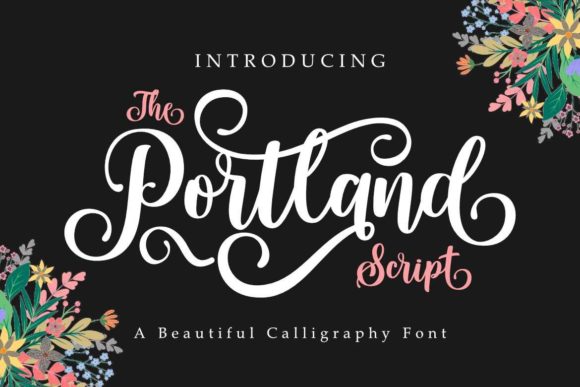
Prepare to be mesmerized by Portland Script, an enchanting handwritten font that seamlessly blends classic elegance with a modern twist. Let your creativity flourish as you explore the boundless possibilities of this exquisite font, meticulously crafted by the talented Madatype Studio.
Portland Script is not just a font; it's an artistic masterpiece that will elevate your designs to new heights. Its graceful strokes, inspired by traditional calligraphy, exude a timeless charm, while its contemporary flair ensures it remains relevant and captivating. Whether you're a seasoned designer or just starting your creative journey, Portland Script will effortlessly enhance your projects with its undeniable allure.
Effortlessly Create a Cohesive Brand Identity:
Unleash the power of Portland Script to craft a cohesive and visually stunning brand identity that resonates with your audience. Its versatile nature allows seamless integration across various platforms, from captivating logos and elegant letterheads to visually engaging social media posts. Let Portland Script be the cornerstone of your brand's visual identity, leaving a lasting impression on your customers.
Craft Enchanting Invitations and Greeting Cards:
Let Portland Script add a touch of magic to your special occasions. Design invitations and greeting cards that are as unique and memorable as the moments they celebrate. Whether it's a wedding, a birthday, or a simple note of appreciation, Portland Script will transform your words into works of art, leaving a lasting impression on your loved ones.
Create Eye-catching Social Media Graphics:
In today's digital world, social media is a powerful tool to connect with your audience and showcase your creativity. With Portland Script, you can effortlessly create visually captivating graphics that demand attention in the crowded social media landscape. Its elegant style and versatility make it the perfect choice for crafting engaging posts, captivating stories, and eye-catching ads that will leave your followers swooning.
Design Breathtaking Posters and Flyers:
Unleash your creativity and design posters and flyers that are as captivating as they are informative. Whether you're promoting an event, a product launch, or a special offer, Portland Script will elevate your designs with its sophistication and charm. Its legible and visually appealing style ensures that your message will shine through, leaving a lasting impact on your audience.
Elevate Your Website Design:
Transform your website into a visually stunning masterpiece with Portland Script. Its harmonious blend of classic and contemporary elements will instantly enhance the user experience. Craft headers and titles that captivate attention, weave enchanting narratives with its beautiful letterforms, and design call-to-action buttons that invite visitors to engage with your content. Portland Script will elevate your website's design, making it a true feast for the eyes.